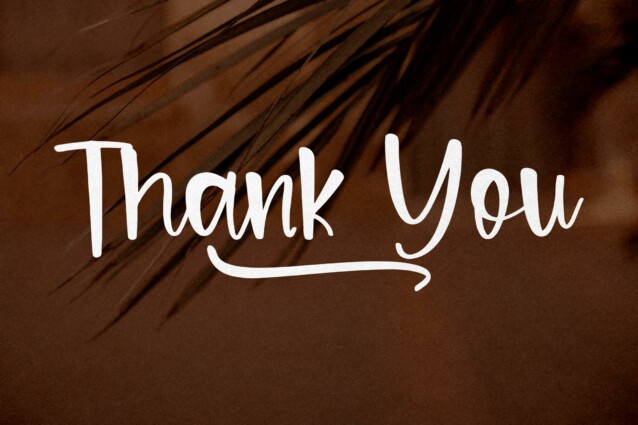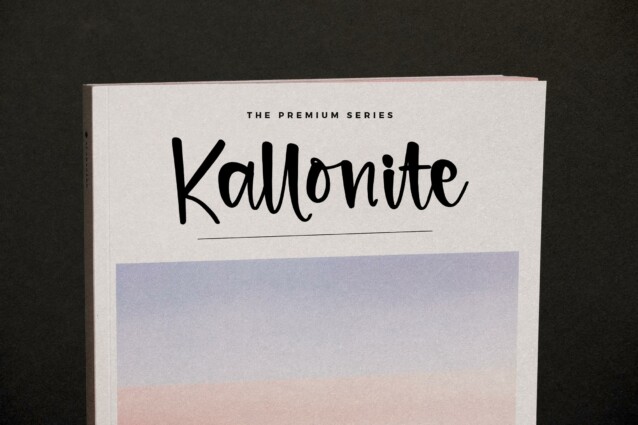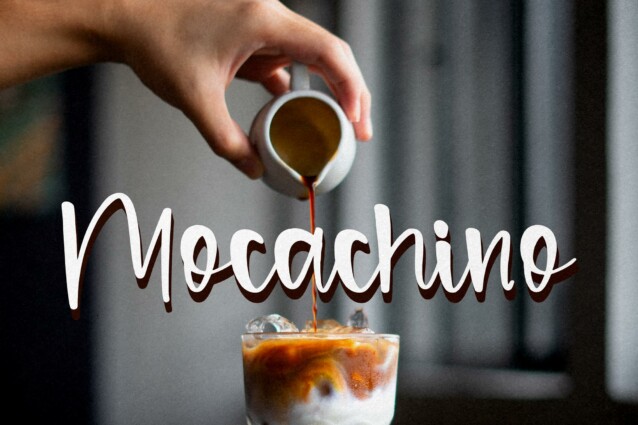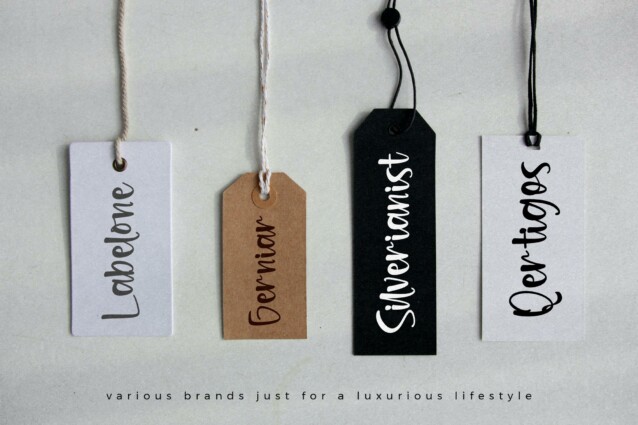
Mondilita Classika Font
Mondilita Classika Font is a beauty script font, suitable for any projects such as: logos, branding projects, homeware designs, product packaging, mugs, quotes, posters, shopping bags, t-shirts, book covers, name card, invitation cards, greeting cards, label, photography, watermark, special events, and all your other lovely projects that need a beautiful script taste.